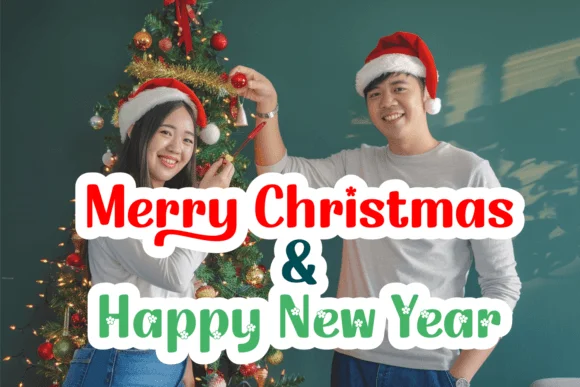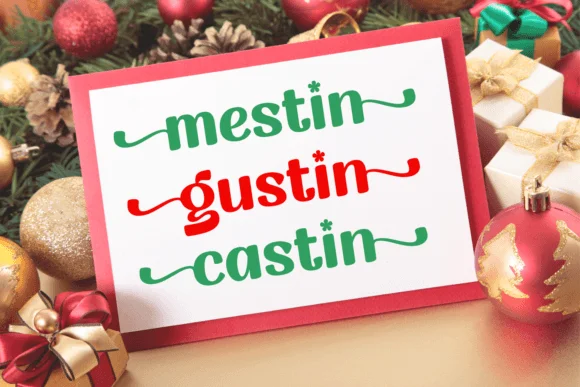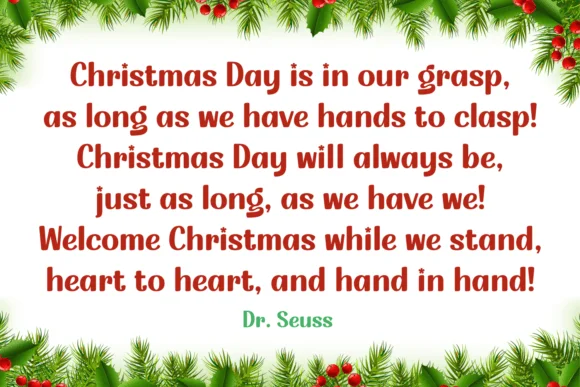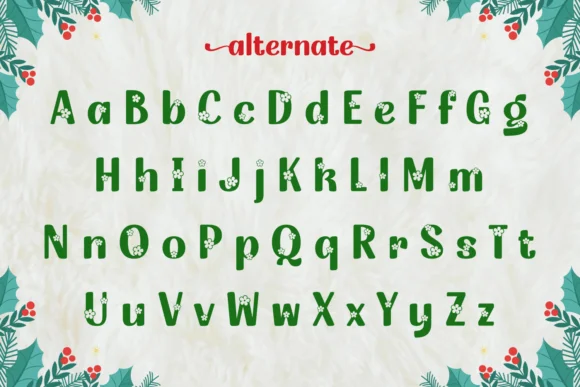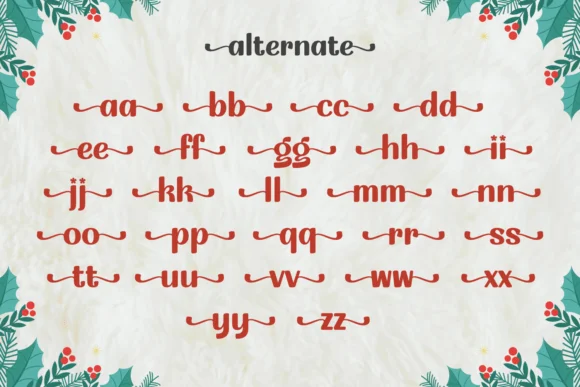
The Christmas Flowers Font
This botanical font is perfect for Christmas floral arrangements, holiday flower shop displays, poinsettia advertisements, Christmas wreath designs, festive botanical decorations, holiday garden center promotions, Christmas flower delivery services, floral Christmas cards, botanical holiday branding, and elegant seasonal flower messaging.
The Christmas Flowers Font is exciting because it celebrates the natural elegance and botanical beauty of Christmas flowers through its organically inspired letterforms that bloom with the same grace and seasonal splendor as poinsettias, Christmas roses, and winter amaryllis. The font features flowing, petal-inspired characters with delicate curves and botanical details that mirror the gentle unfurling of flower petals and the graceful stems of holiday blooms, incorporating subtle leaf patterns and floral flourishes that create the visual impression of letters grown from a winter garden. Each character showcases the organic complexity and natural artistry found in Christmas flowers, with soft edges and botanical accents that capture the way these special plants bring life, color, and natural beauty to the darkest days of winter. The design perfectly embodies the life-affirming presence of flowers during Christmas, creating typography that feels as fresh and vibrant as a greenhouse full of blooming poinsettias.
The Christmas Flowers Font family includes botanical style variations: Regular, Bold, Light, Bloom, and Petal versions. The collection features special floral elements including poinsettia accents, rose petal details, leaf flourishes, and stem ornaments. Additional components include botanical borders, floral frames, garden decorations, and natural ornamental designs that enhance the font's Christmas flowers appeal and create cohesive botanical holiday themes.
Florists and botanical enthusiasts will find The Christmas Flowers Font to be an invaluable resource for creating elegant holiday communications that celebrate the natural beauty and seasonal significance of Christmas flowers. This organically inspired font transforms ordinary floral messaging into blooming expressions that resonate with audiences who appreciate the life-giving beauty and symbolic meaning of flowers during the winter season.
The typeface includes comprehensive character support with botanical styling that maintains excellent readability while conveying the natural elegance and organic beauty of Christmas flowers. The font's floral design ensures stunning results across both commercial floriculture applications and personal botanical projects.
Perfect for flower shops, garden centers, floral designers, and botanical Christmas celebrations, this font delivers natural visual impact that communicates growth, beauty, and the miraculous way Christmas flowers bloom with vibrant life and color during winter's darkest days, bringing hope and natural splendor to holiday celebrations.